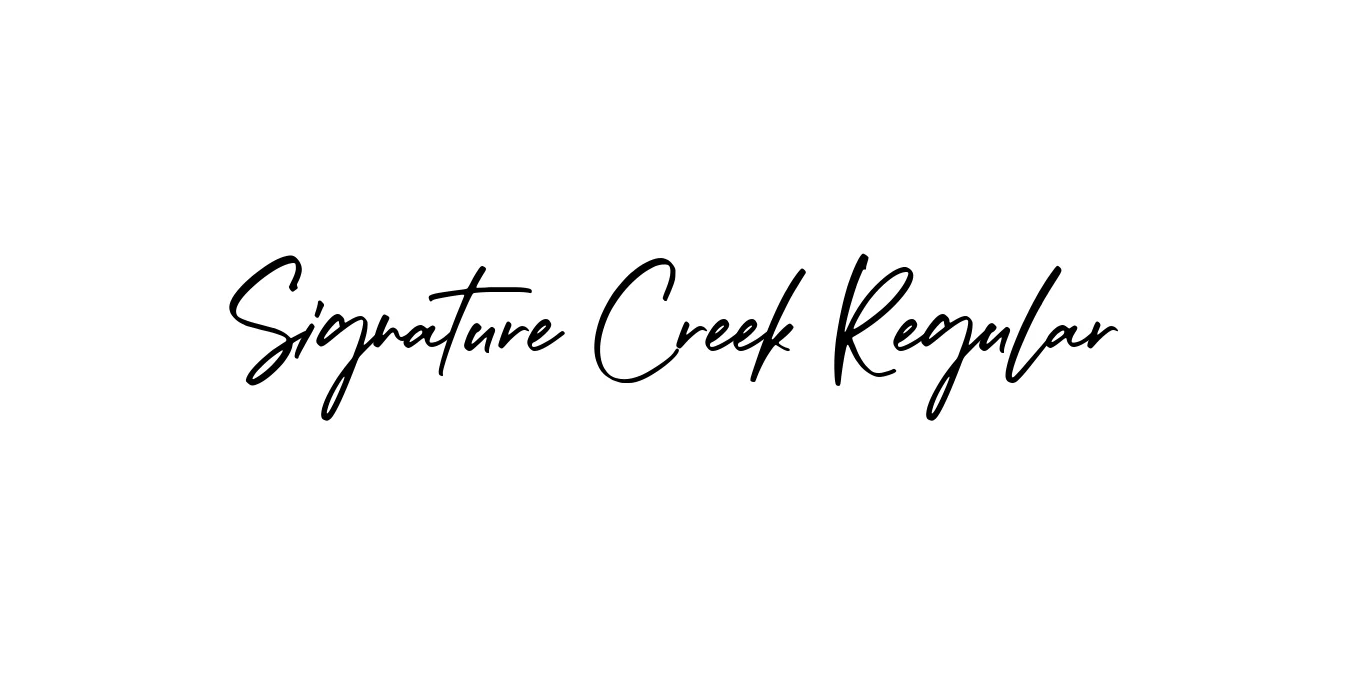
Signature Creek Regular
Designed by Sronstudio
Signature Creek Regular is a sophisticated and elegant script typeface designed to emulate the natural, fluid motion of authentic handwriting. Characterized by its slender strokes and artistic ligatures, this font brings a sense of intimacy and high-end style to any design project. It is particularly effective for those seeking a modern aesthetic that remains grounded in classical calligraphy techniques, ensuring that every word feels uniquely personal.
The font is widely favored in the professional branding and luxury marketing sectors due to its refined appearance. Whether applied to high-fashion editorial layouts, bespoke wedding invitations, or minimalist logo designs, Signature Creek Regular provides a polished finish. Its smooth curves and balanced letterforms ensure legibility while maintaining a high level of decorative flair, making it a versatile tool for both digital and print applications.
Signature Creek Regular Best Uses
Ideal for creating premium logos and visual identities for boutiques and startups.
Perfect for adding a personalized touch to invitations, RSVP cards, and envelopes.
Excellent for stylish Instagram quotes, aesthetic overlays, and lifestyle blogging.
A top choice for professional watermarks that do not distract from the main imagery.